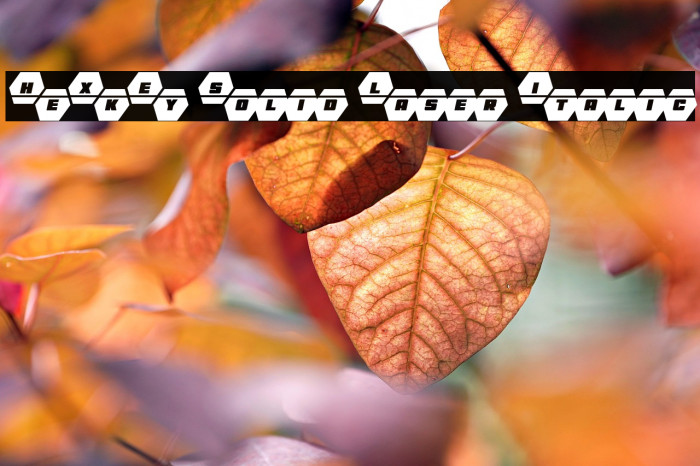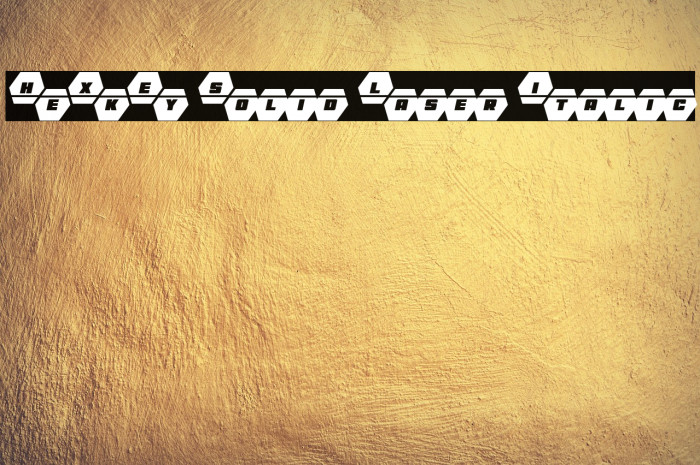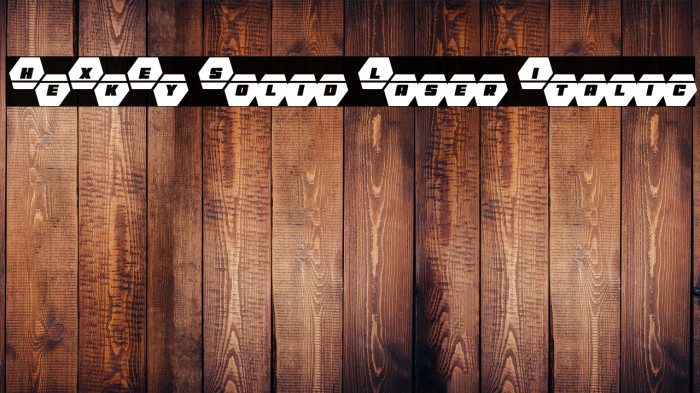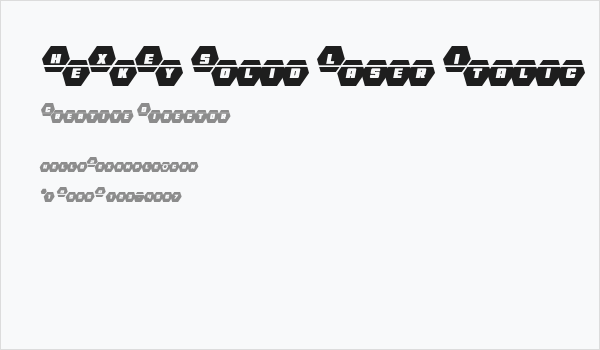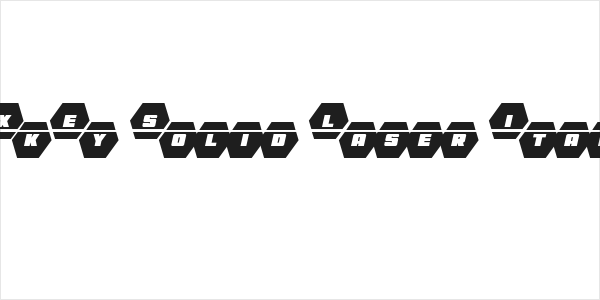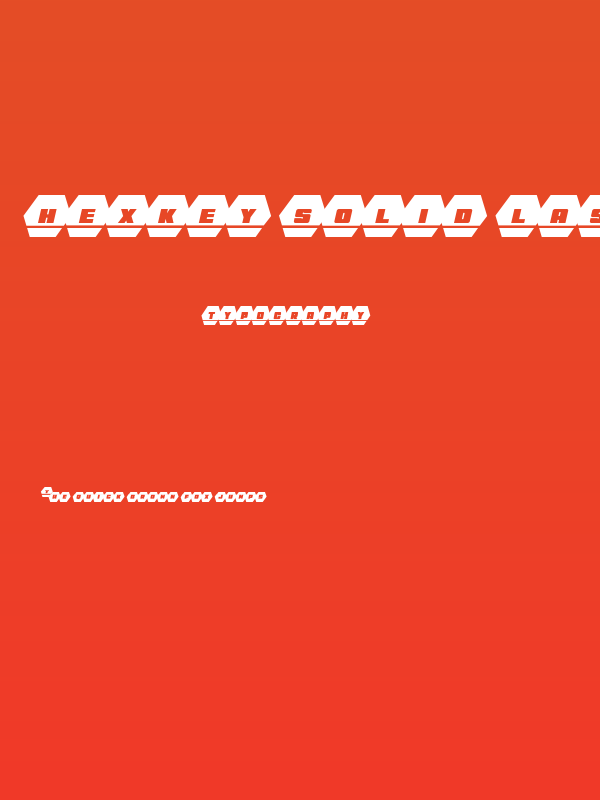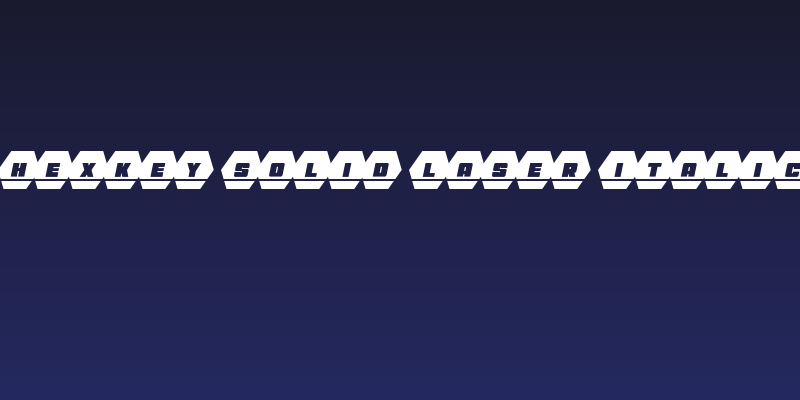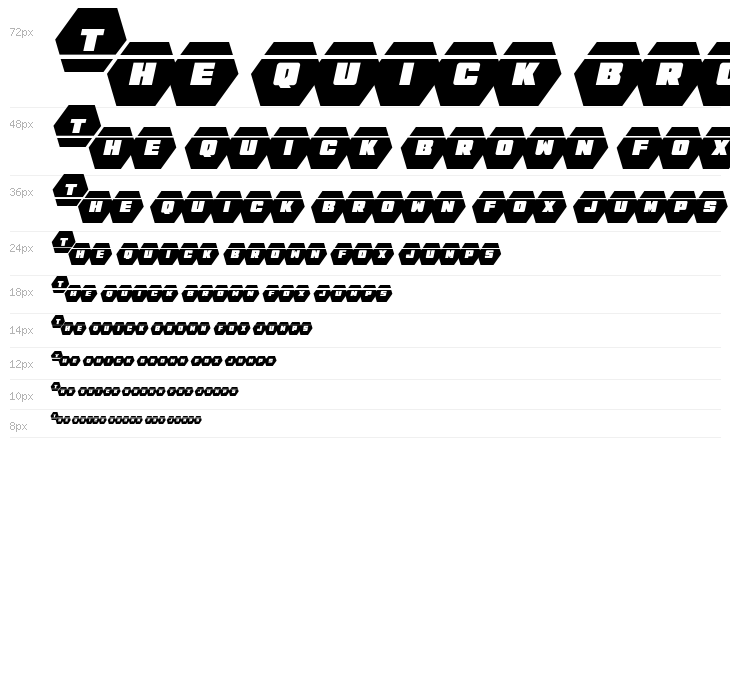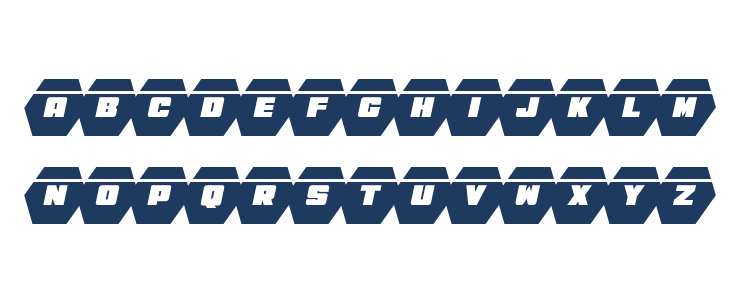
HeXkEy Solid Laser Italic Font
HeXkEy Solid Laser Italic Description
This font features a bold, futuristic design with a distinct 3D effect, giving each character a solid, block-like appearance. The letters are enclosed in hexagonal shapes, creating a unique and eye-catching style. The italicized slant adds a dynamic and forward-moving feel, enhancing its modern aesthetic. The characters are uniformly bold, with consistent stroke thickness, contributing to a strong visual impact. The geometric design is consistent across uppercase, lowercase, numbers, and special characters, maintaining a cohesive look throughout.
| Proposed Projects | Ideal for sci-fi themed projects, video game titles, tech branding, or any design requiring a modern, edgy look. |